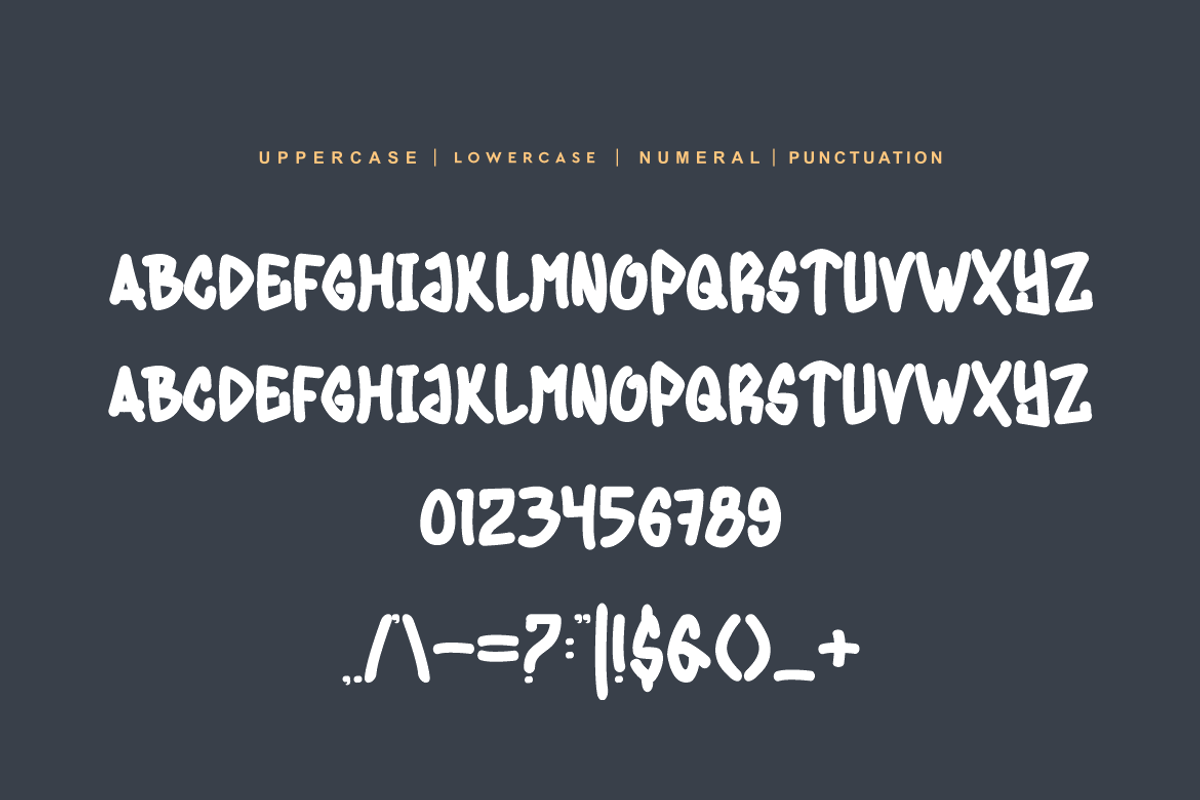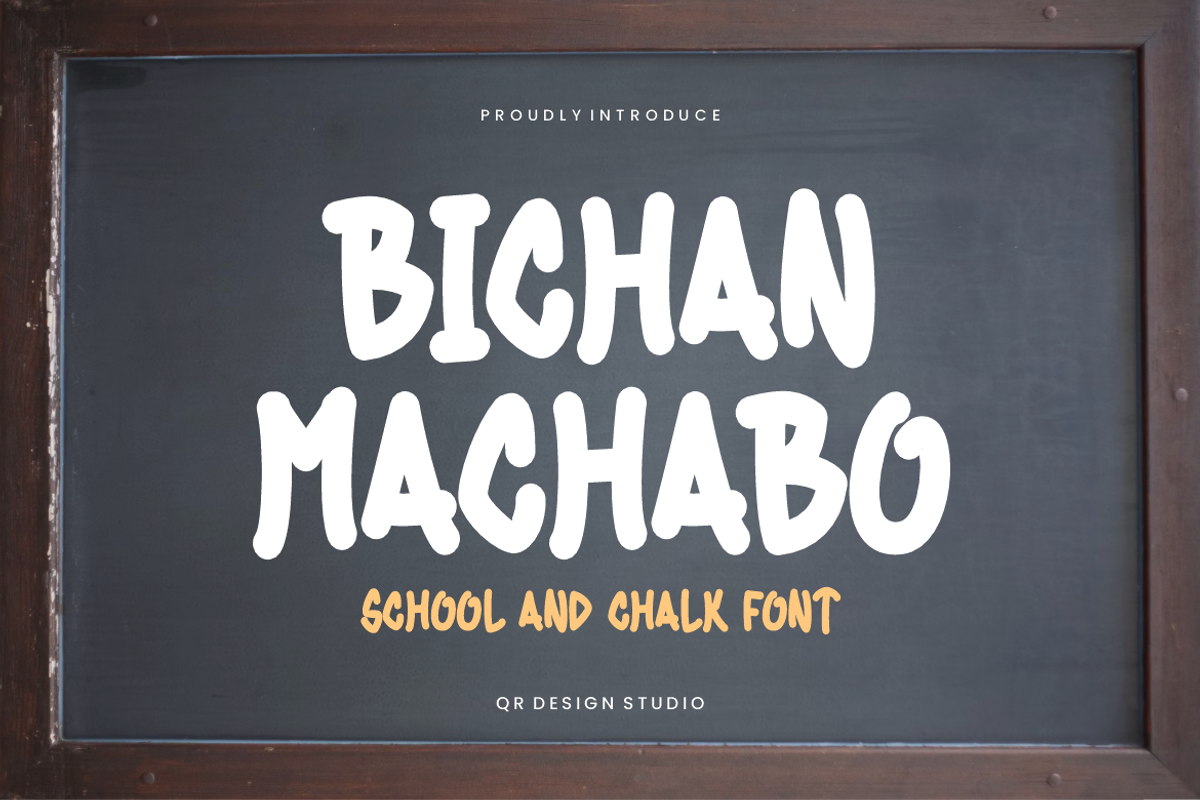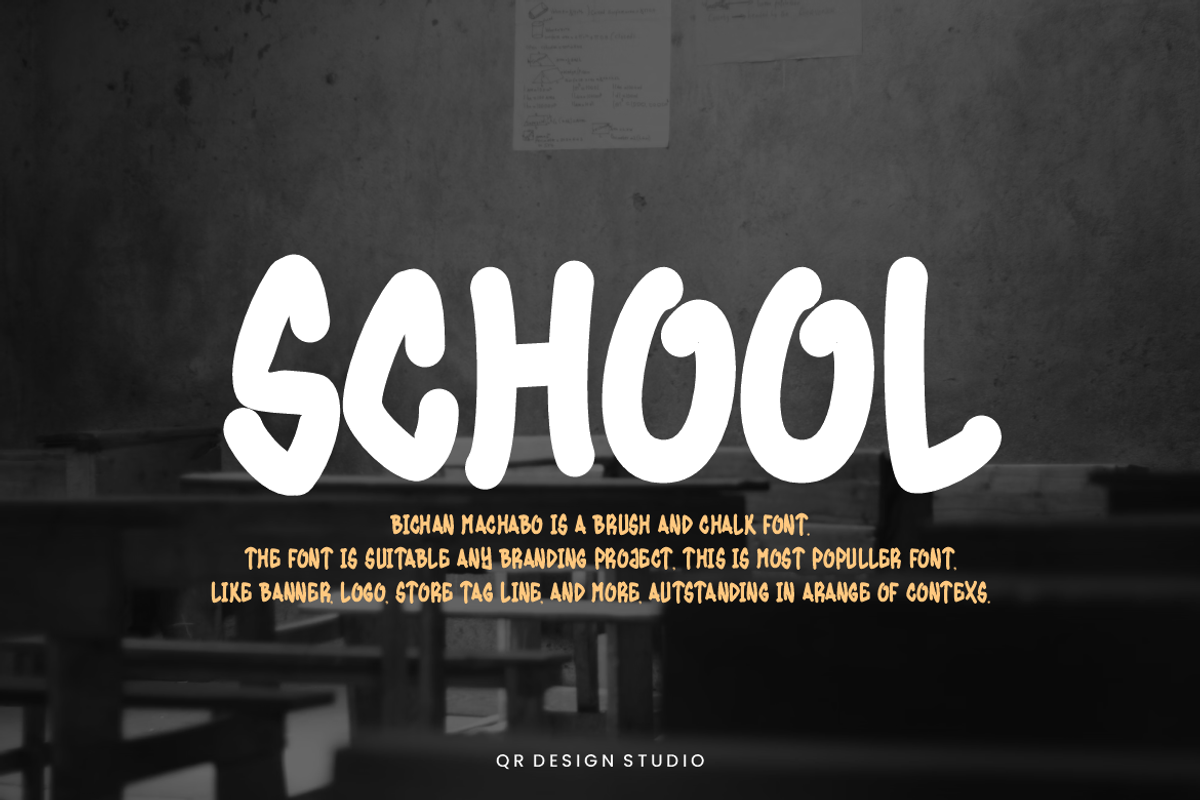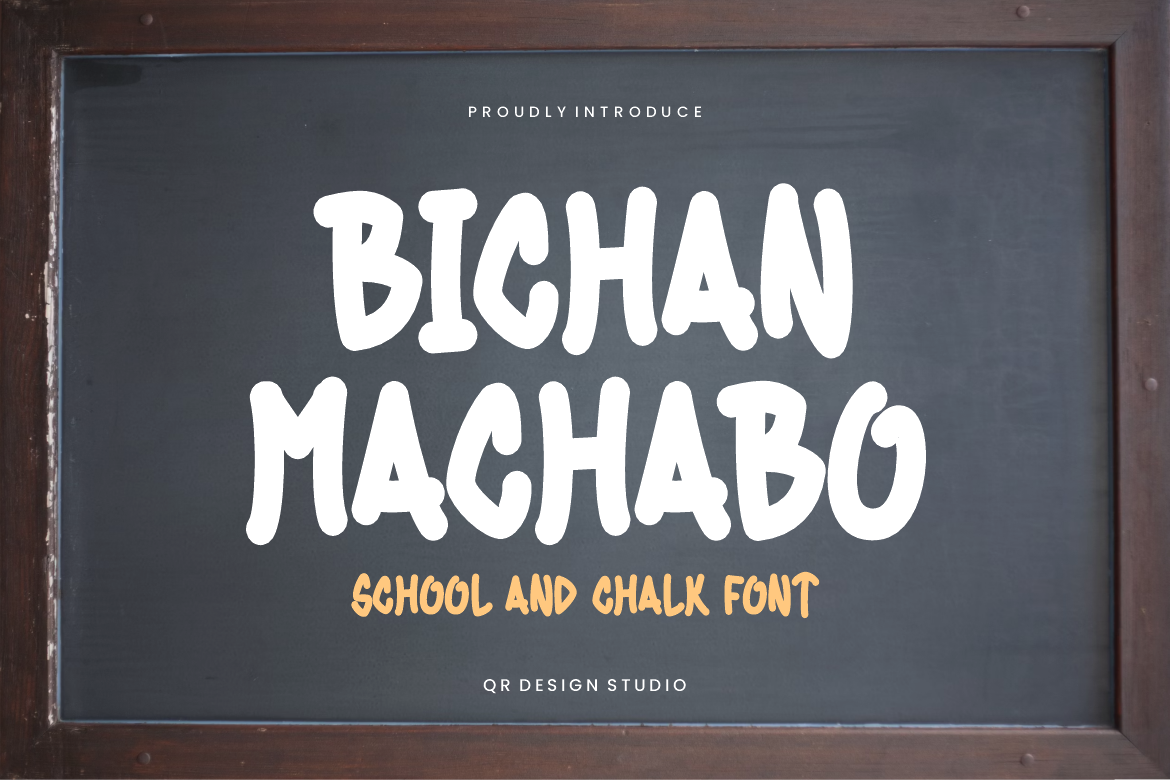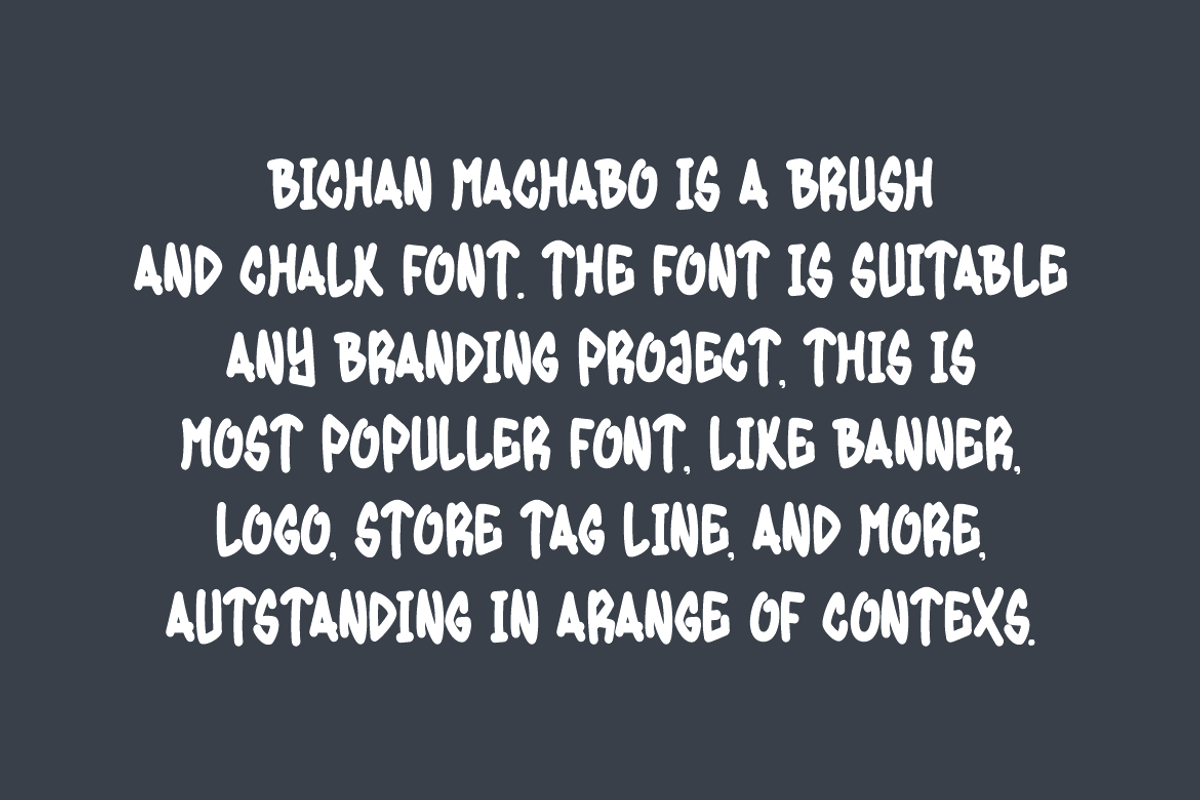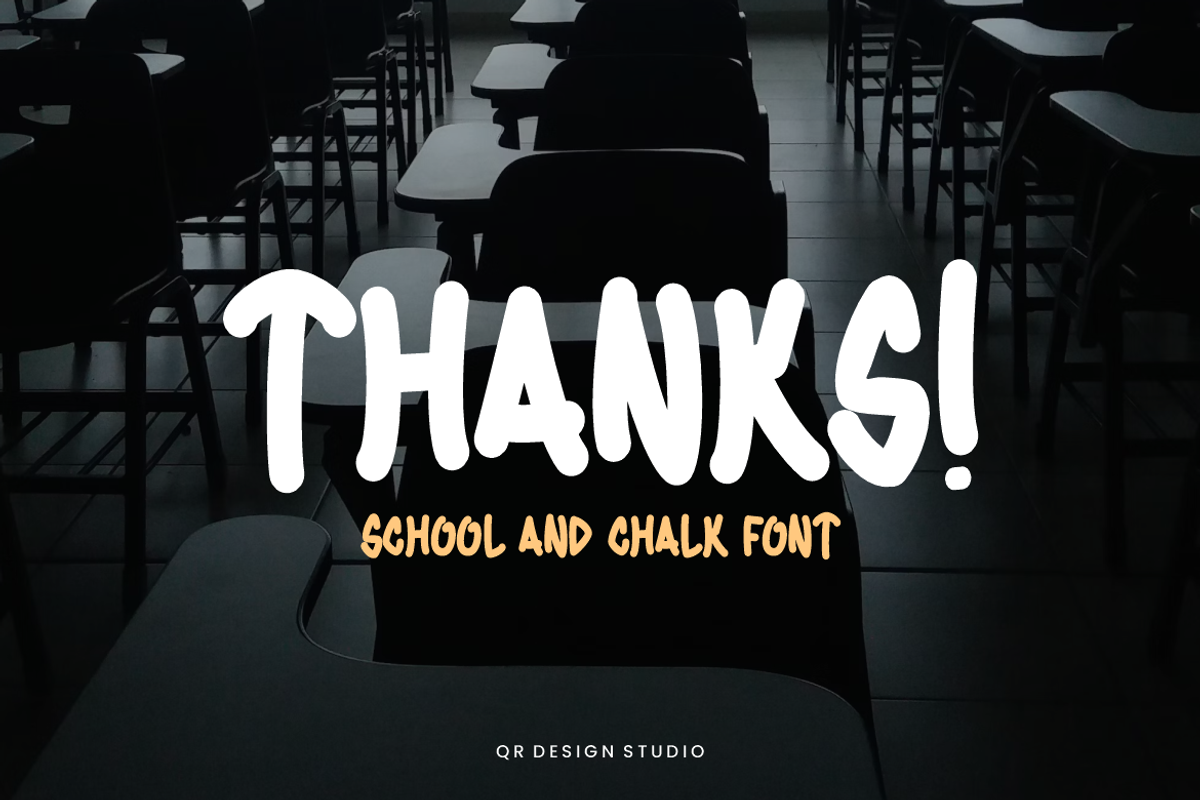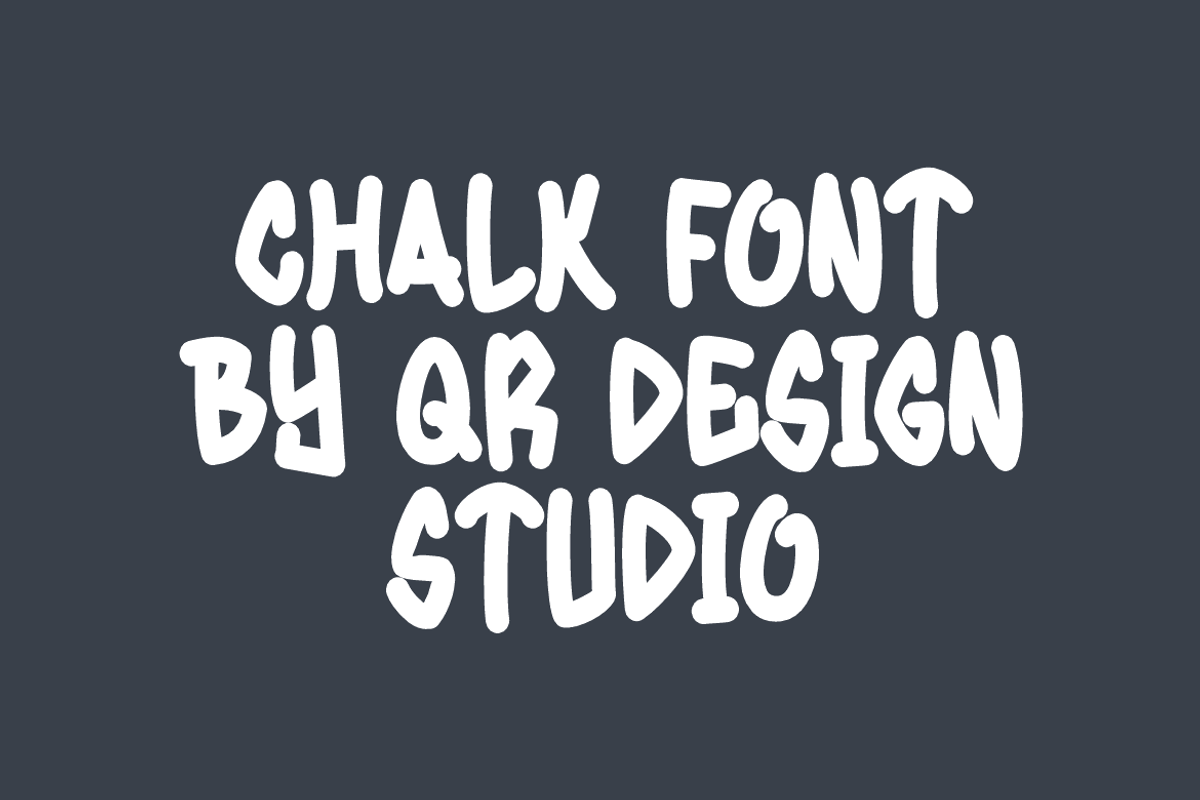
Bichan Machabo - School & Chalk Font
Bichan Machabo - School & Chalk Font is a brush and authentic display font. The font is suitable for any branding project like poster, logo, sport, and many more. Outstanding in a wide range of contexts.